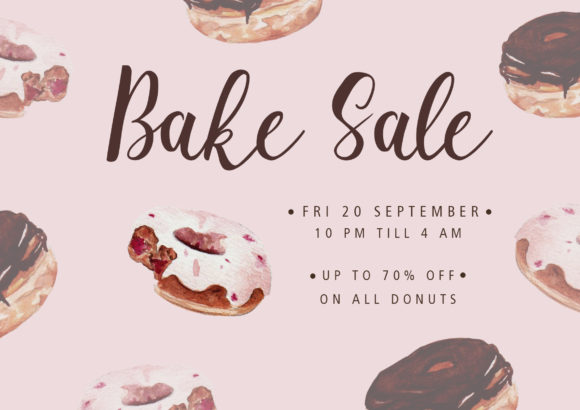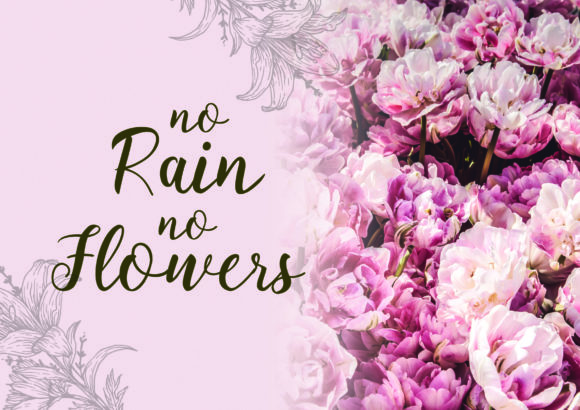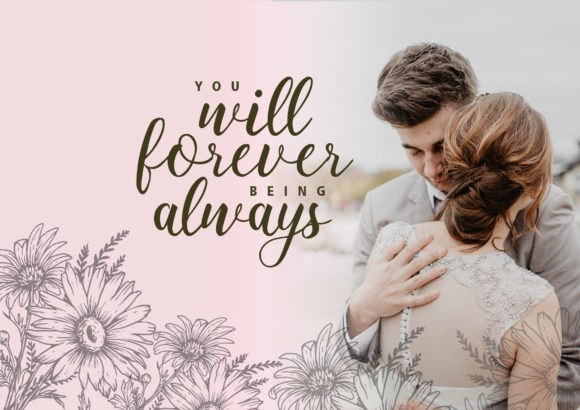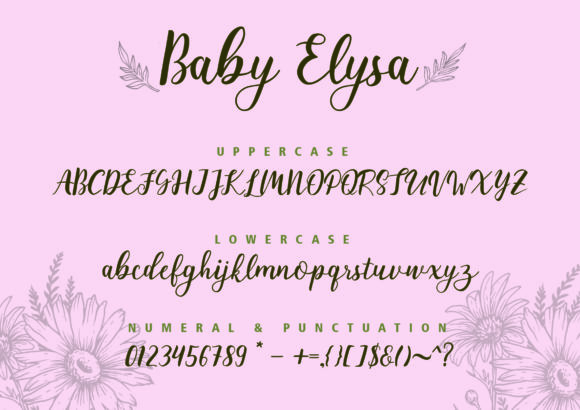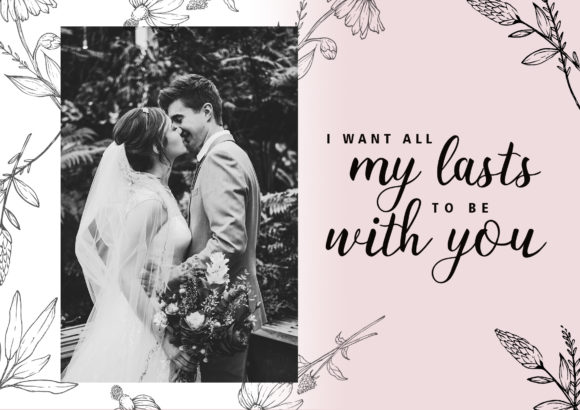
The Birth of a Timeless Classic: Baby Elysa Font
Do you ever find yourself in a creative rut, staring blankly at your computer screen, waiting for inspiration to strike? It’s a feeling many designers know all too well. But what if I told you that the key to unlocking your next big project lies in the delicate strokes of a single font?
Meet Baby Elysa Font, a stunning script that’s about to become your new best friend. With its unique, sophisticated look, Baby Elysa Font is perfect for designers looking to add a touch of elegance to their next project. Whether you’re working on a wedding invitation, a children’s book, or a luxury brand’s marketing materials, Baby Elysa Font is the perfect choice. And the best part? Its versatility makes it a valuable asset for designers of all levels.
Baby Elysa Font Key Features
- Font Style: Script, Handwritten
- Font Size: 1,012 glyphs
- Unique Characteristics: Elegant, delicate, and whimsical feel, perfect for creating a sense of innocence and charm in designs
Baby Elysa Font Review
As a designer, I was excited to dive into the Baby Elysa Font, a script font designed specifically for feminine and elegant projects. Here’s my honest review.
- The fluidity of the font is impressive, with smooth connections between letters that give it a natural, handwritten feel.
- The font’s subtle flourishes and ligatures add a touch of sophistication and whimsy, making it perfect for invitations, greeting cards, and other special occasions.
- The font’s versatility shines through its various styles, from casual to formal, making it suitable for a wide range of projects.
- The font’s readability can be compromised at smaller font sizes, making it less suitable for body text or large blocks of text.
- The font’s elegance can also make it feel a bit over-the-top or overly ornate, which may not be suitable for more minimalist designs.
Overall, I think the Baby Elysa Font is a beautiful and versatile addition to any designer’s toolkit. While it may have some limitations, its unique charm and elegance make it a great choice for projects that require a touch of sophistication and whimsy.
Tips for Getting the Most Out of Baby Elysa Font
1. Experiment with different font sizes and styles to achieve the desired look.
2. Use the font in combination with other design elements to create a cohesive and visually appealing design.
3. Consider using the font in a variety of contexts, such as headings, titles, and body text.
1. Baby-related designs, such as nursery decor and baby shower invitations.
2. Children’s book illustrations
Alternatives to Baby Elysa Font
Baby Elysa Font is a modern, elegant, and playful script font. However, it may not be suitable for all designs. Here are some alternatives for designers:
Carolyna Pro is a high-end script font with a sophisticated and elegant look. It’s perfect for luxury brands, high-end fashion, and wedding invitations. Compared to Baby Elysa Font, Carolyna Pro has a more refined and polished look, making it ideal for formal designs.
Great Vibes is a beautiful, cursive script font with a friendly and approachable feel. It’s suitable for greeting cards, invitations, and social media graphics. Unlike Baby Elysa Font, Great Vibes has a more casual and relaxed vibe, making it perfect for everyday designs.
Alex Brush is a elegant and sophisticated script font with a touch of vintage charm. It’s perfect for branding, packaging, and editorial designs. Compared to Baby Elysa Font, Alex Brush has a more refined and timeless look, making it ideal for classic and sophisticated designs.